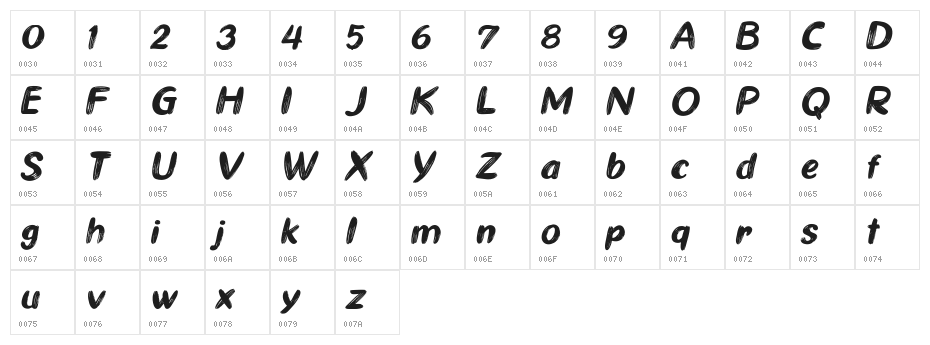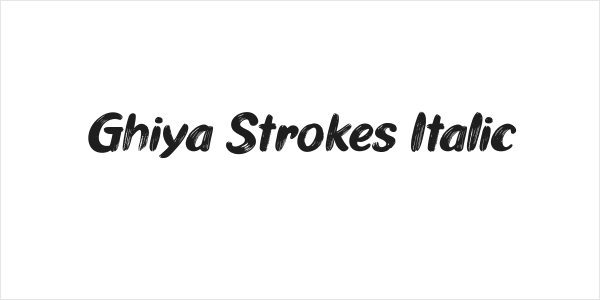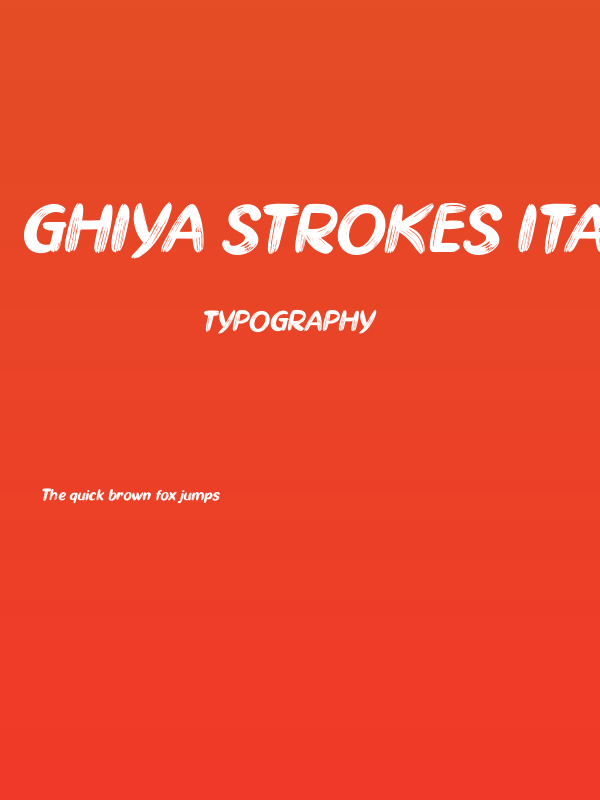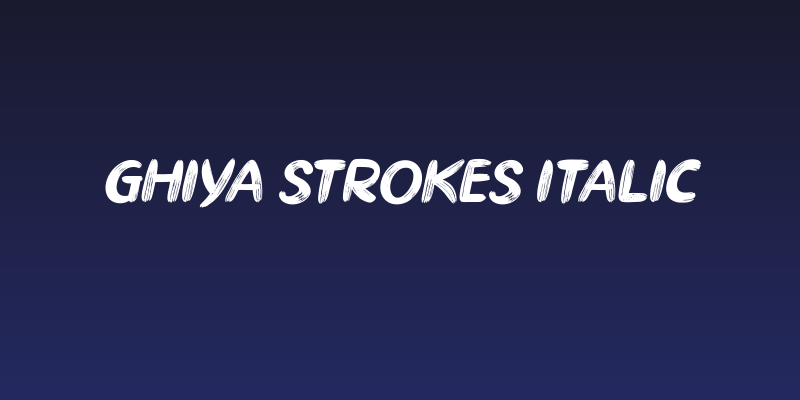
Ghiya Strokes Italic Font
Ghiya Strokes Italic Description
This font features a dynamic and expressive brushstroke style, characterized by its bold and italicized appearance. Each letter is crafted with a sense of motion, as if painted with a swift, confident hand. The strokes vary in thickness, adding a textured and artistic feel to the text. The uppercase and lowercase letters maintain a consistent flow, while the numerals and special characters integrate seamlessly with the overall design. This font's unique style makes it stand out, offering a creative and energetic vibe.
| Overall Style | Modern, Artistic |
| Proposed Projects | Ideal for artistic projects, branding, posters, and any design requiring a bold, creative touch. |